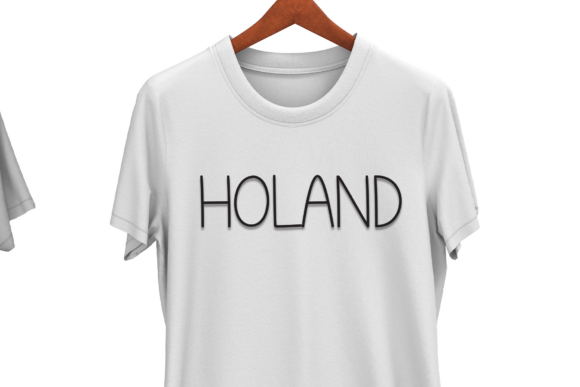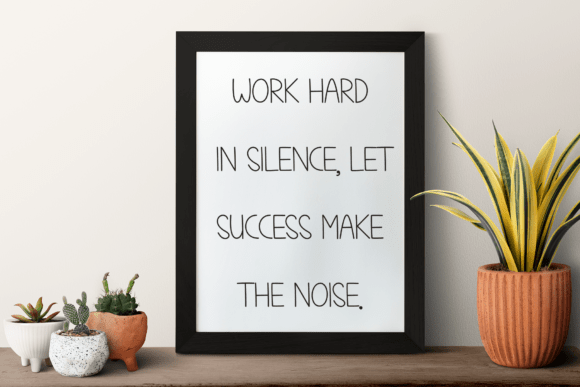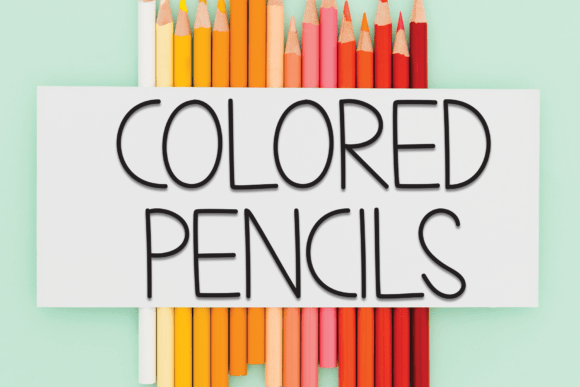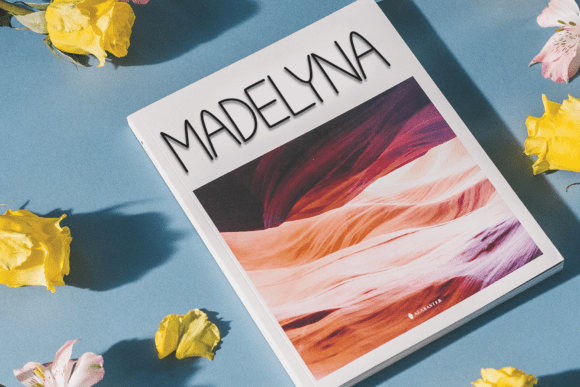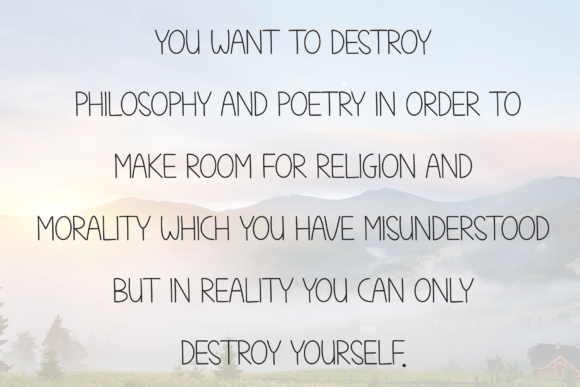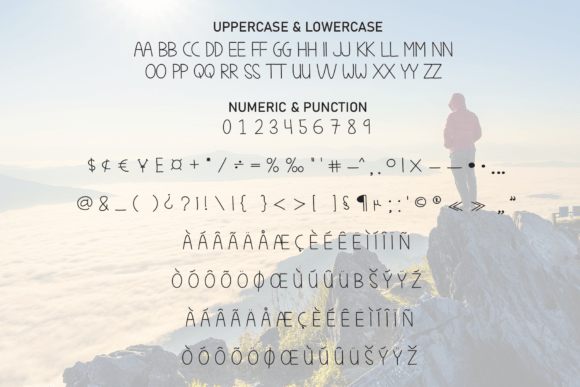
Dream Font: The Perfect Blend of Casual and Neat Display Typography
In the world of typography, fonts play a crucial role in conveying messages, evoking emotions, and creating lasting impressions. For designers and crafters, finding the right font can be a daunting task, especially when it comes to balancing style, readability, and charm. This is where the Dream Font comes in – a casual and neat display font designed to bring warmth and clarity to your projects.
The Design Philosophy of Dream Font
Dream Font is crafted with a clean structure and approachable style, making it an ideal choice for branding, headlines, and everyday designs. The font’s balanced letterforms offer exceptional readability and charm, ensuring that every message feels genuine and inviting. Whether you’re working on a logo, brochure, or website, Dream Font is the perfect companion to help you communicate your ideas with clarity and style.
Key Features of Dream Font
- Clean Structure: Dream Font boasts a clean and organized structure, making it easy to read and understand.
- Approachable Style: The font’s casual and friendly approach makes it perfect for designs that require a personal touch.
- Balanced Letterforms: The font’s carefully crafted letterforms ensure excellent readability and a charming aesthetic.
- Versatility: Dream Font is suitable for a wide range of design projects, from branding and headlines to everyday designs.
Why Choose Dream Font?
With so many fonts available, why should you choose Dream Font for your projects? Here are a few compelling reasons:
- Warmth and Clarity: Dream Font brings a sense of warmth and clarity to your designs, making them more engaging and effective.
- Readability: The font’s balanced letterforms ensure that your message is conveyed clearly, even at smaller font sizes.
- Charm and Personality: Dream Font adds a touch of charm and personality to your designs, setting them apart from the rest.
- Ease of Use: The font is easy to use and pairs well with a variety of other fonts, making it a versatile addition to your design toolkit.
Dream Font is an excellent choice for designers and crafters who want to add a personal touch to their projects. Whether you’re working on a:
- Branding Project: Use Dream Font to create a logo, business card, or letterhead that exudes warmth and approachability.
- Headline: Add a touch of elegance and sophistication to your headlines with Dream Font’s clean and balanced letterforms.
- Everyday Design: Use Dream Font to create eye-catching posters, flyers, or social media graphics that require a friendly and approachable tone.
In conclusion, Dream Font is an exceptional display font that offers a perfect blend of casual and neat typography. Its clean structure, approachable style, and balanced letterforms make it an excellent choice for designers and crafters looking to add warmth and clarity to their projects. With its versatility, readability, and charm, Dream Font is sure to become a staple in your design toolkit.